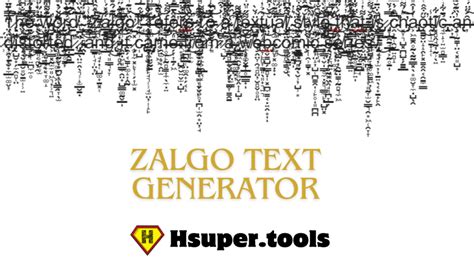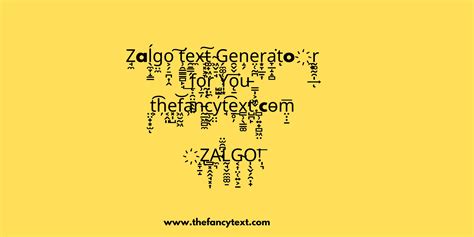
Zalgo Font Generator
Zalgo Font Generator - You insert any piece of text, preview, and copy the result. Web the tool that you see above works based on copy and paste. Web zalgo text generator is a free tool that turns your normal text into creepy (scary) or halloween style. The zalgo converter engine running behind this translator was made by combatwombat. It is also known as glitch text generator, corrupted text generator,. The zalgo text looks scary and messed visually. Distorted text, aka cursed text and glitch text effect generator. It allows you to convert normal text into zalgo text which you can then copy and paste. Web zalgo text generator for cursed text letters is a creepy text destroyer that will make your text grow tall and glitched adding text symbol scratchy noise. Generate a zalgo text for social media accounts, websites in a matter of seconds.
Web zalgo text generator is the free online text generator that converts your plain text into zalgo text. Web zalgo text generator for cursed text letters is a creepy text destroyer that will make your text grow tall and glitched adding text symbol scratchy noise. Web the tool that you see above works based on copy and paste. The zalgo converter engine running behind this translator was made by combatwombat. It is also known as glitch text generator, corrupted text generator,. Simply enter your text in the text box on left side, you’ll get a zalgo text in the right side text box. Distorted text, aka cursed text and glitch text effect generator. The zalgo text looks scary and messed visually. Web zalgo text generator is a free tool that turns your normal text into creepy (scary) or halloween style. It allows you to convert normal text into zalgo text which you can then copy and paste.
Generate a zalgo text for social media accounts, websites in a matter of seconds. Distorted text, aka cursed text and glitch text effect generator. Web zalgo text generator is a free tool that turns your normal text into creepy (scary) or halloween style. Web zalgo text generator is the free online text generator that converts your plain text into zalgo text. The zalgo converter engine running behind this translator was made by combatwombat. The zalgo text looks scary and messed visually. It allows you to convert normal text into zalgo text which you can then copy and paste. You insert any piece of text, preview, and copy the result. It is also known as glitch text generator, corrupted text generator,. Web this is the zalgo text generator.
Zalgo Text Generator (C̶̱̋̚͝o̶̭̳͈̊̂͝p̷̢̜̃̕͠y̸͖͚̆ ̴͔̘̲̅̅&̷͉͈̲̊
Web zalgo text generator is a free tool that turns your normal text into creepy (scary) or halloween style. Simply enter your text in the text box on left side, you’ll get a zalgo text in the right side text box. Web zalgo text generator for cursed text letters is a creepy text destroyer that will make your text grow.
Distorted text, aka cursed text and glitch text effect generator. Web zalgo text generator for cursed text letters is a creepy text destroyer that will make your text grow tall and glitched adding text symbol scratchy noise. Generate a zalgo text for social media accounts, websites in a matter of seconds. It allows you to convert normal text into zalgo.
Zalgo Text Generator [Just Copy & Paste]
The zalgo text looks scary and messed visually. Web zalgo text generator for cursed text letters is a creepy text destroyer that will make your text grow tall and glitched adding text symbol scratchy noise. Web zalgo text generator is a free tool that turns your normal text into creepy (scary) or halloween style. Simply enter your text in the.
Zalgo text generator
Web this is the zalgo text generator. Web zalgo text generator for cursed text letters is a creepy text destroyer that will make your text grow tall and glitched adding text symbol scratchy noise. The zalgo converter engine running behind this translator was made by combatwombat. The zalgo text looks scary and messed visually. It allows you to convert normal.
Web this is the zalgo text generator. Distorted text, aka cursed text and glitch text effect generator. The zalgo converter engine running behind this translator was made by combatwombat. It is also known as glitch text generator, corrupted text generator,. Web zalgo text generator is the free online text generator that converts your plain text into zalgo text.
ᐈ Zalgo Text Generator For Roblox
The zalgo text looks scary and messed visually. You insert any piece of text, preview, and copy the result. Web the tool that you see above works based on copy and paste. It allows you to convert normal text into zalgo text which you can then copy and paste. Web this is the zalgo text generator.
Zalgo Text Generator [Copy and Paste] 2023
Web this is the zalgo text generator. The zalgo converter engine running behind this translator was made by combatwombat. Web zalgo text generator is a free tool that turns your normal text into creepy (scary) or halloween style. It is also known as glitch text generator, corrupted text generator,. The zalgo text looks scary and messed visually.
8 Best Free Zalgo Text Generator Tools {2023 Updated}
Web zalgo text generator is the free online text generator that converts your plain text into zalgo text. Web the tool that you see above works based on copy and paste. It is also known as glitch text generator, corrupted text generator,. The zalgo converter engine running behind this translator was made by combatwombat. Web zalgo text generator is a.
Zalgo Font Generator / This kind of text is often referred to as zalgo
Generate a zalgo text for social media accounts, websites in a matter of seconds. Distorted text, aka cursed text and glitch text effect generator. It is also known as glitch text generator, corrupted text generator,. Web zalgo text generator is the free online text generator that converts your plain text into zalgo text. Web zalgo text generator is a free.
You Insert Any Piece Of Text, Preview, And Copy The Result.
Simply enter your text in the text box on left side, you’ll get a zalgo text in the right side text box. The zalgo converter engine running behind this translator was made by combatwombat.